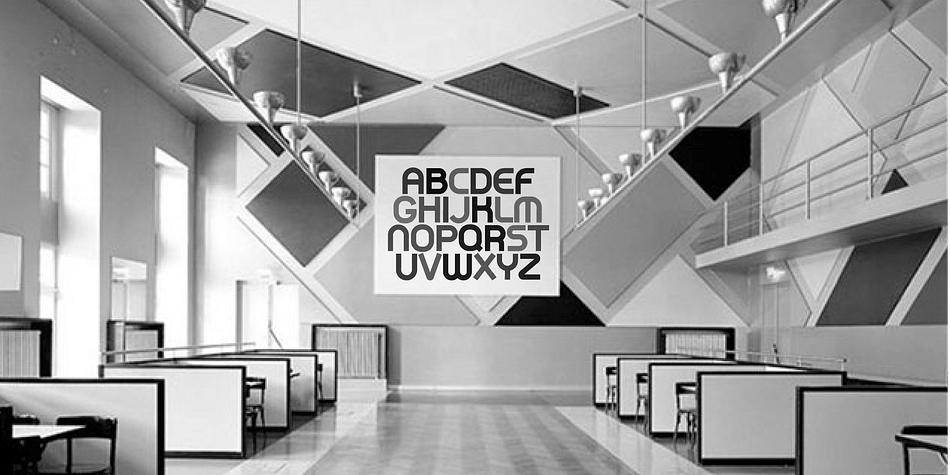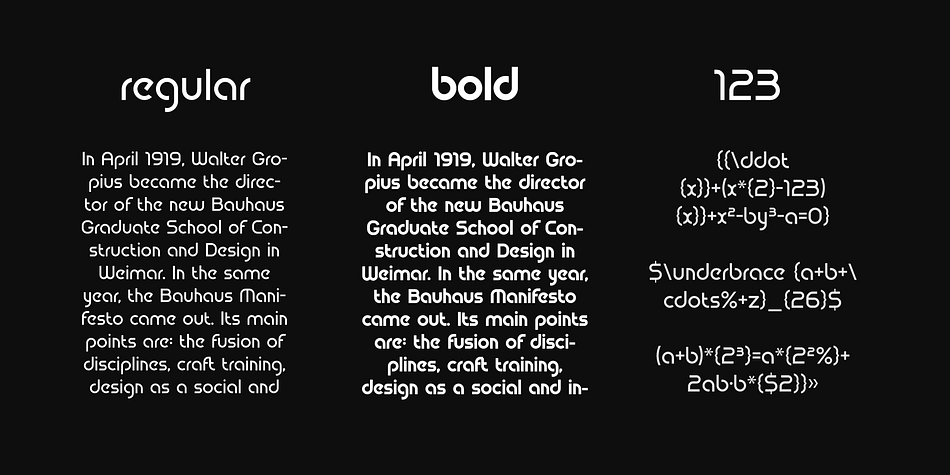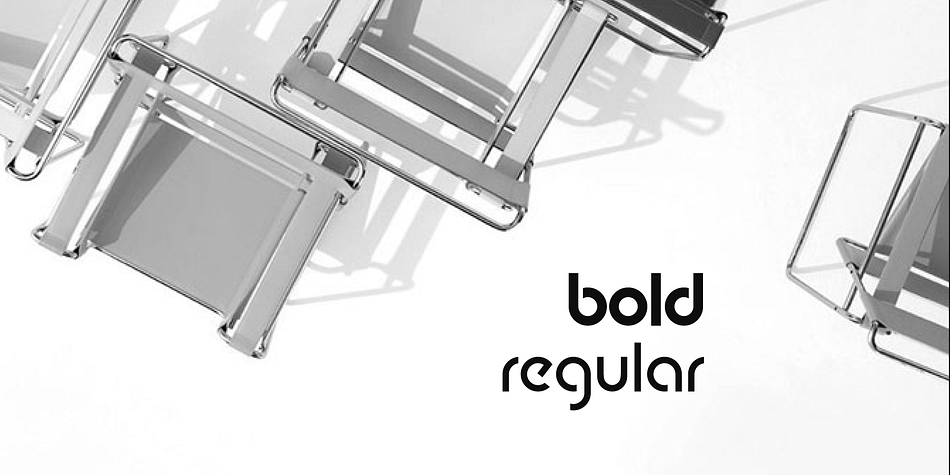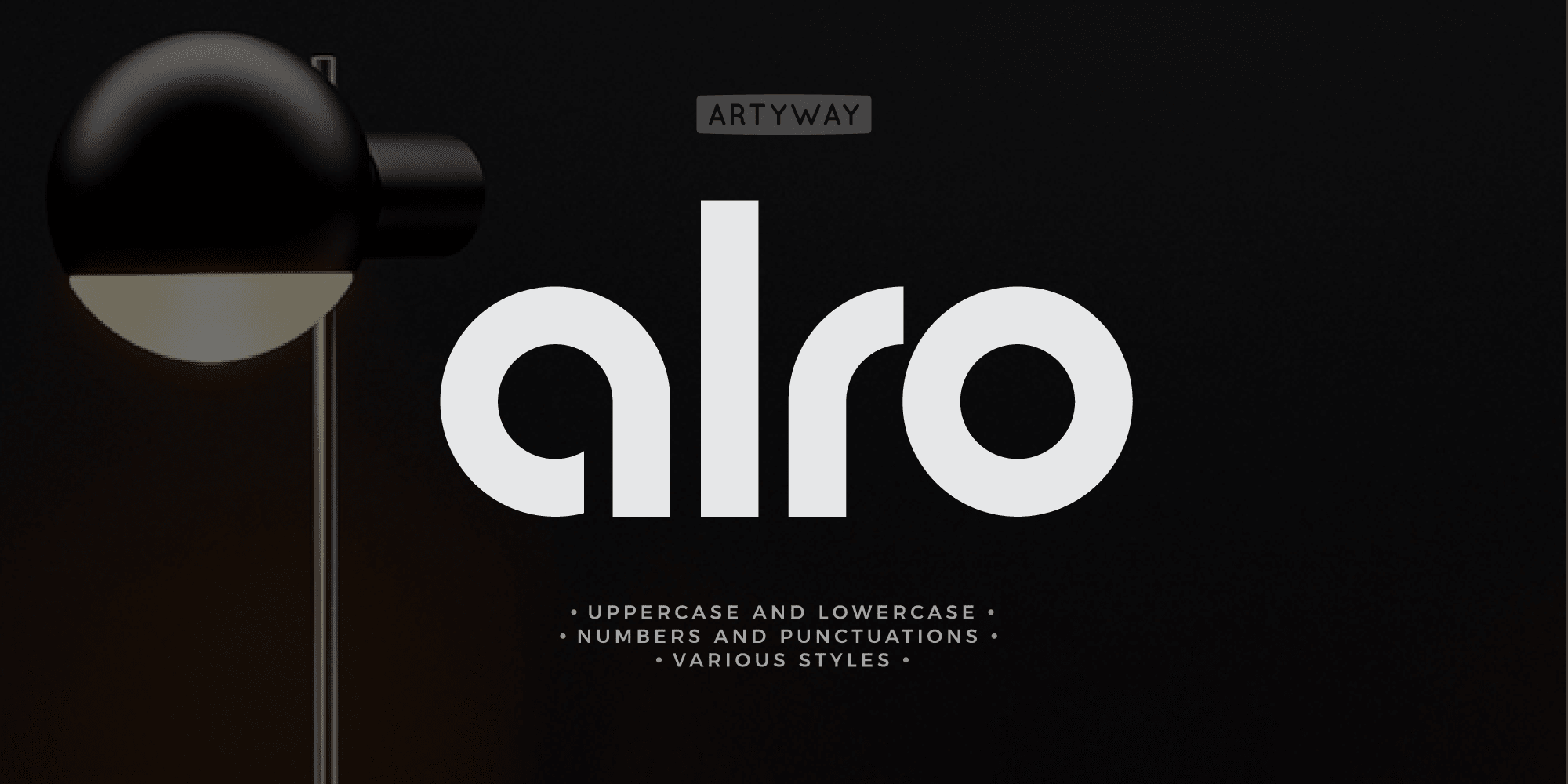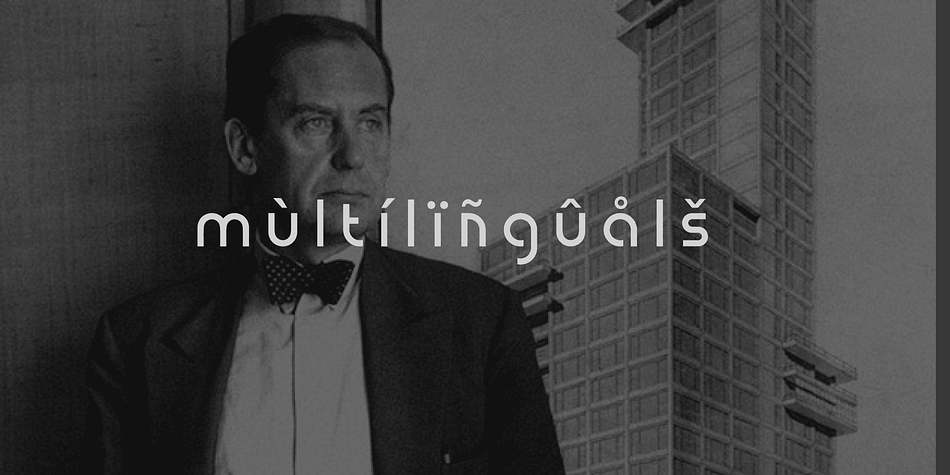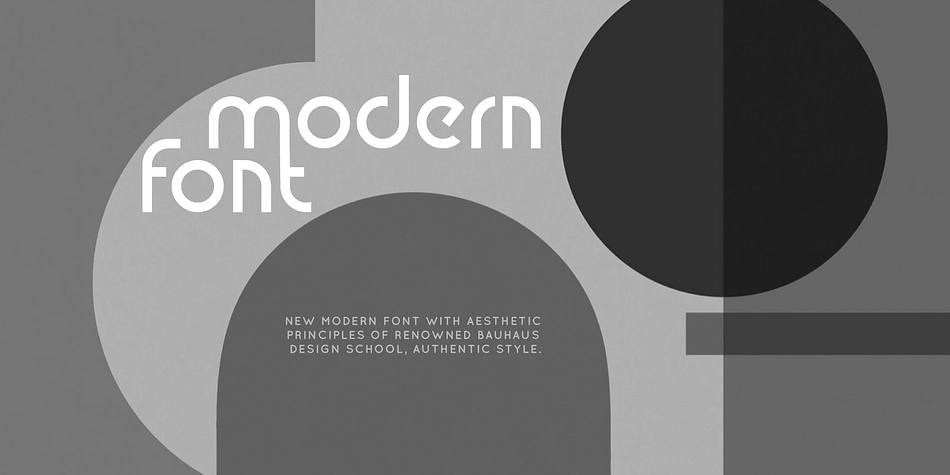
Alro
Designed by Yehor Lisnyi, Alro is a display sans, retro and sans serif font family. This typeface has two styles and was published by Artyway.
Looking for the perfect rounded font for all your minimalist design concepts? Then grab this font with an elegant bauhaus style.
The font includes upper and lowercase letters with clean, rounded corners to instantly give designs that minimalist feel. You can quickly go from vintage to sci-fi in minutes. This minimal typeface comes in 2 styles that look amazing on body copy, logos, posters, headlines, books and magazine covers, brochures, as well as branding projects.
Foundry Artyway
Designer Yehor Lisnyi